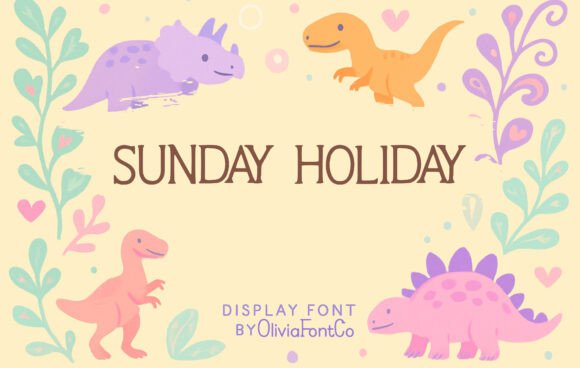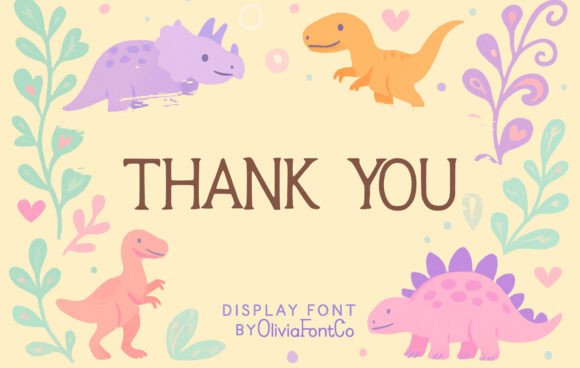
Discover the Versatility of Endang Font: Elevate Your Designs to New Heights
I’ll never forget the moment I stumbled upon the Endang Font. I was working on a project for a client who needed a unique and stylish font for their branding, and I was determined to find the perfect one. After hours of searching, I finally came across Endang Font, and it was love at first sight! ✨ This font has been a game-changer for my design workflow, and I’m excited to share its awesomeness with you.
An Honest Review of Endang Font
- ✨ Legibility: Endang Font is incredibly clear and readable, making it perfect for both title and body text.
- ✅ Versatility: This font can be used for a wide range of designs, from magazine headlines to t-shirts, social media, branding, wedding invitations, and more.
- 💡 Creative freedom: Endang Font has a wide range of OpenType features, glyphs, and stylistic alternates, giving you the flexibility to experiment and create unique designs.
While Endang Font is an amazing font, there are a few minor quirks to be aware of:
- 🤔 Limited language support: Endang Font may not support all languages, so be sure to check the font’s specifications before using it for a project.
- ⚠️ Not suitable for body text in small sizes: While Endang Font is legible, it may not be the best choice for body text in very small sizes (e.g., 8-10pt). It’s best used for larger sizes or as a display font.
The Backstory of Endang Font
Endang Font was designed with the goal of creating a versatile and stylish font that could be used for a wide range of creative projects. The designer drew inspiration from classic typography and modern design trends to create a font that’s both elegant and bold. With its clean lines and sophisticated feel, Endang Font is perfect for designers, crafters, and creative hobbyists looking to elevate their designs.
Q: What type of projects is Endang Font best suited for?
A: Endang Font is perfect for a wide range of projects, including magazine headlines, t-shirts, social media, branding, wedding invitations, and more.
Q: Is Endang Font easy to read?
A: Yes, Endang Font is designed to be highly legible and easy to read, making it perfect for both title and body text.